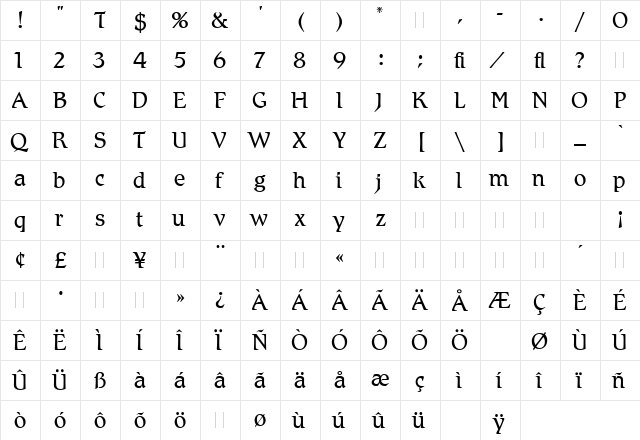
Romic Light LET Plain
Design Context for Romic Light LET Typeface
Romic Light LET is a composed and adaptable typeface that performs quietly and consistently across a wide range of design contexts. The delicate stroke weight brings airiness and refinement to layouts.